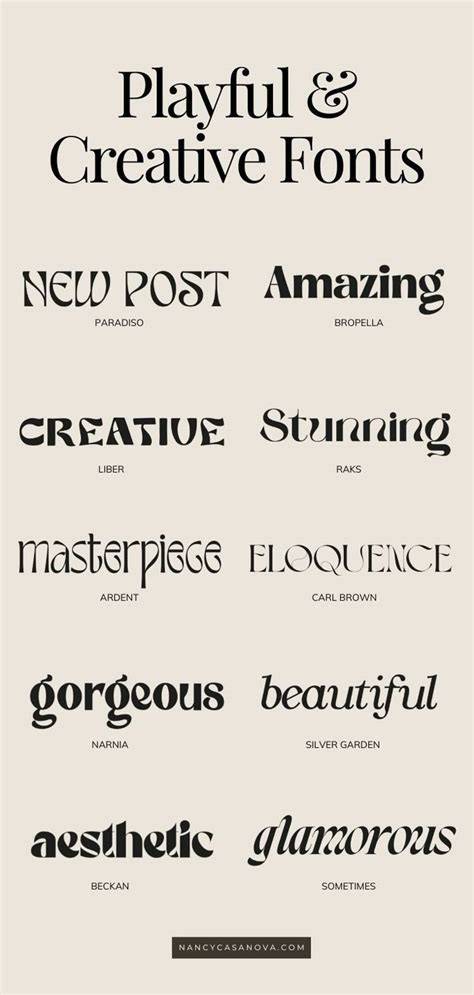
Different Font Styles In 2023: From Traditional To Trendy!
Introduction
In 2023, font styles have come a long way since the traditional serif and sans serif fonts. Nowadays, no two fonts are alike, and designers are constantly creating new and unique font styles to keep up with the ever-changing trends. With the vast selection of fonts available, it can be difficult to decide on the right font for your project. Whether you’re creating a logo, designing a website, or writing a document, the font you choose can make or break your design. Read on to learn more about the different font styles that are popular in 2023, and how to choose the right one for your project!
Popular Font Styles in 2023
In 2023, there are a wide variety of font styles available to choose from. Some of the most popular font styles include:
Serif Fonts
Serif fonts are the traditional fonts that were used for printing in the old days. They are easy to read and have a classic look. Popular serif fonts in 2023 include Times New Roman, Georgia, and Garamond. Serif fonts are best for traditional designs, such as logos, documents, and books.
Sans Serif Fonts
Sans serif fonts are the modern, minimalist fonts that are popular in 2023. They have a clean, modern look, and are great for web designs. Popular sans serif fonts include Helvetica, Arial, and Open Sans. Sans serif fonts are best for web designs, such as websites and app designs.
Script Fonts
Script fonts are the elegant, handwritten fonts that are popular in 2023. They have a stylish, vintage look, and are great for logos and invitations. Popular script fonts include Brush Script, Lobster, and Scriptina. Script fonts are best for creative designs, such as logos, invitations, and posters.
Display Fonts
Display fonts are the bold, unique fonts that are popular in 2023. They have a fun, eye-catching look, and are great for headlines and titles. Popular display fonts include Impact, Rockwell, and Futura. Display fonts are best for headlines, titles, and advertisements.
How to Choose the Right Font
Choosing the right font for your project can be tricky, but with a few tips, you can find the perfect font for your design. Here are a few tips for choosing the right font in 2023:
1. Consider the Context
When choosing a font, it's important to consider the context of your project. Different fonts are better suited for different contexts. For example, a serif font is better suited for a traditional document, while a sans serif font is better suited for a website. Consider the context of your project before you choose a font.
2. Think About Legibility
It's also important to consider the legibility of your font. Some fonts are more legible than others, so it's important to choose a font that is easy to read. Look for fonts with thick strokes and even letter spacing for improved legibility.
3. Consider Your Audience
Finally, consider your audience when choosing a font. Different fonts appeal to different audiences, so it's important to choose a font that will appeal to your target audience. For example, a script font may appeal to a younger audience, while a serif font may appeal to an older audience.
Fonts are an important part of any design project, so it's important to choose the right font for your project. With the wide selection of font styles available in 2023, it can be hard to decide which font is best for your project. However, by considering the context, legibility, and audience of your project, you can easily find the perfect font for your project. Good luck!